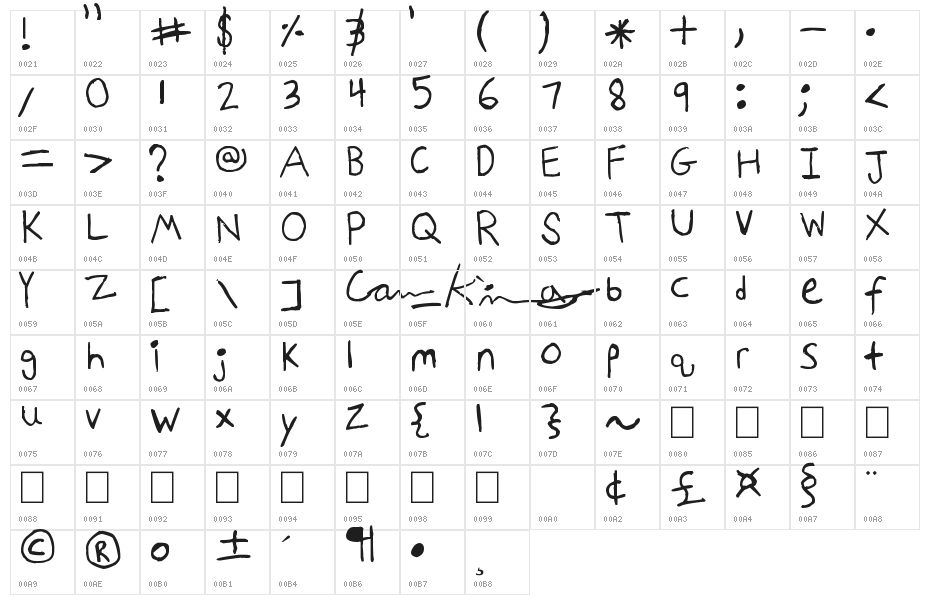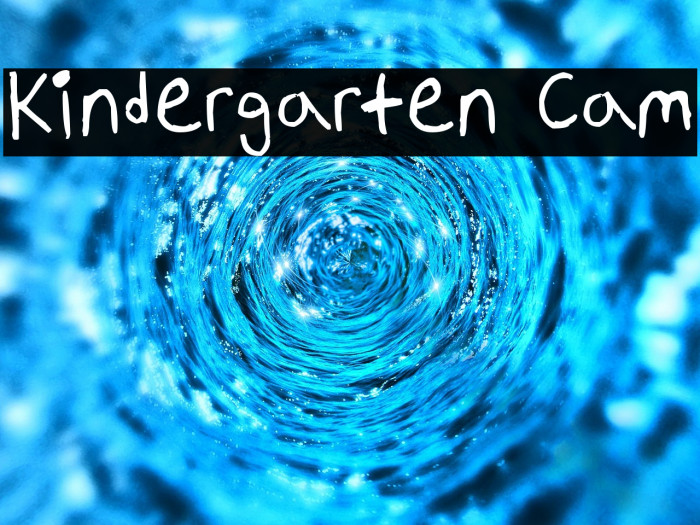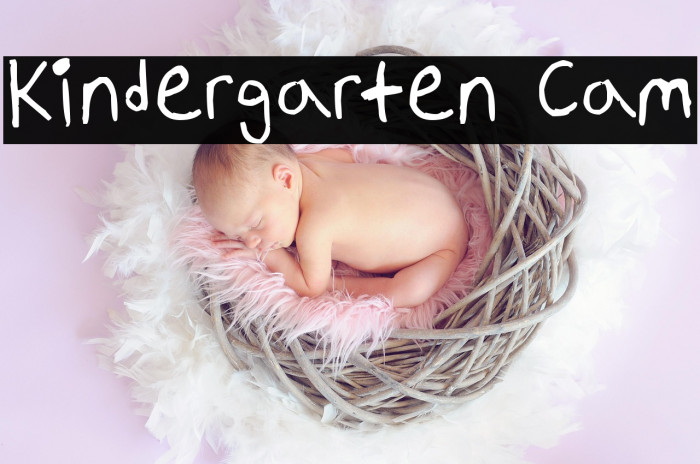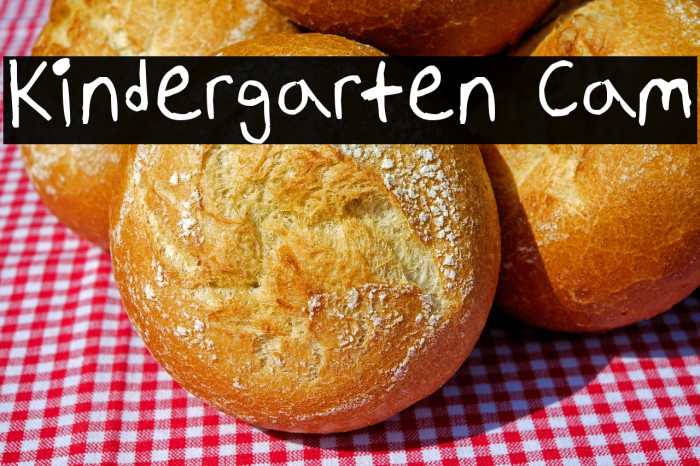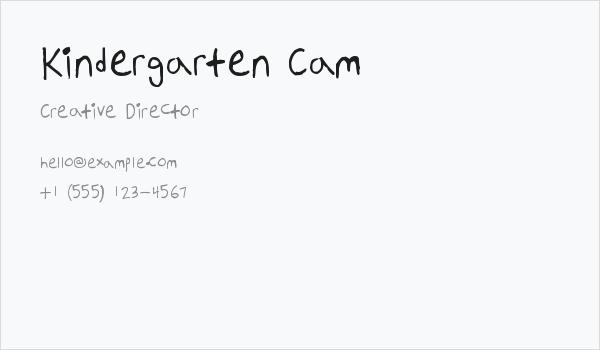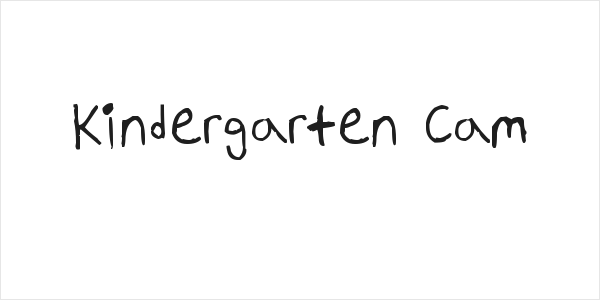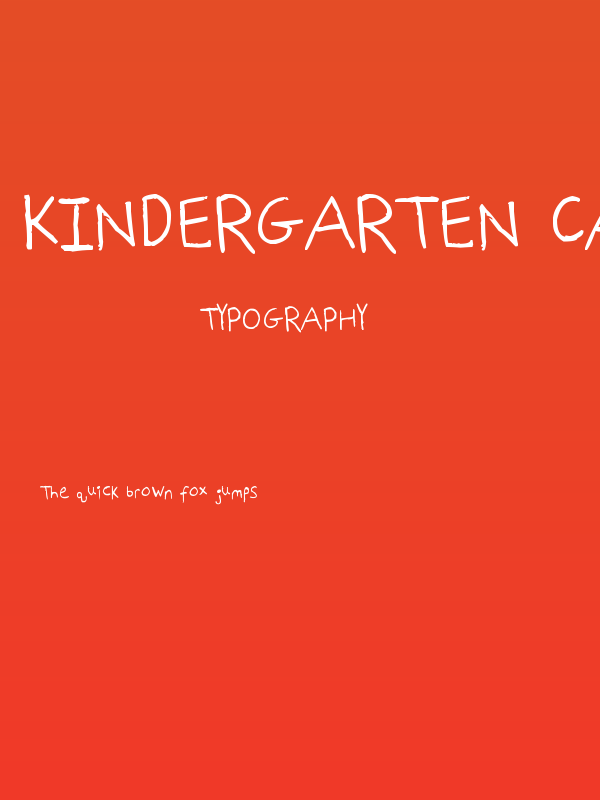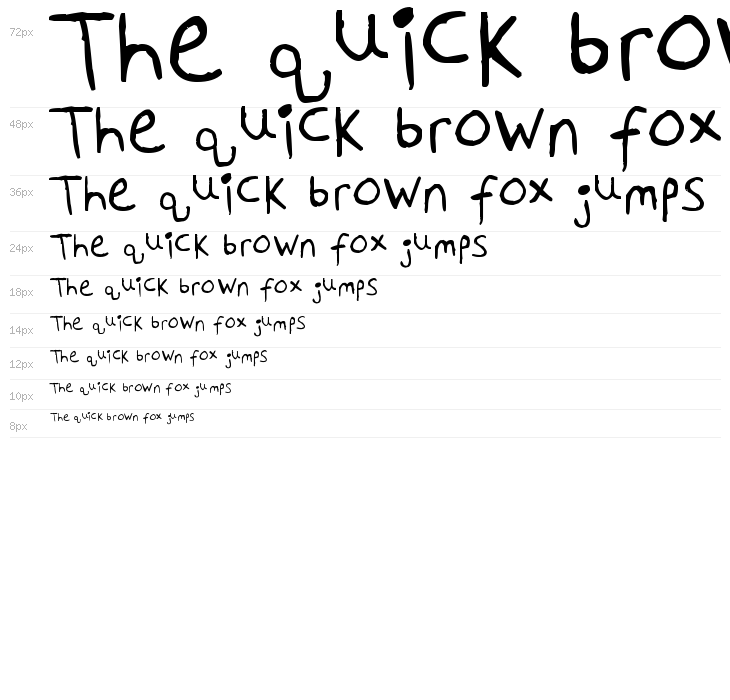
Kindergarten Cam Font
Kindergarten Cam Description
This playful and whimsical font captures the essence of a child's handwriting, featuring irregular strokes and a casual, informal style. The letters are unevenly sized, with a charmingly imperfect alignment that adds to its authenticity. The strokes are bold and rounded, giving the font a friendly and approachable feel. It's designed to evoke a sense of innocence and creativity, making it ideal for projects that aim to connect with a younger audience or convey a sense of fun and playfulness. The font includes a full set of uppercase and lowercase letters, numbers, and a variety of special characters, ensuring versatility in its application.
| Use Case | Headlines, Logos, Children's materials |
| Proposed Projects | Ideal for children's books, educational materials, playful branding, and creative projects. |